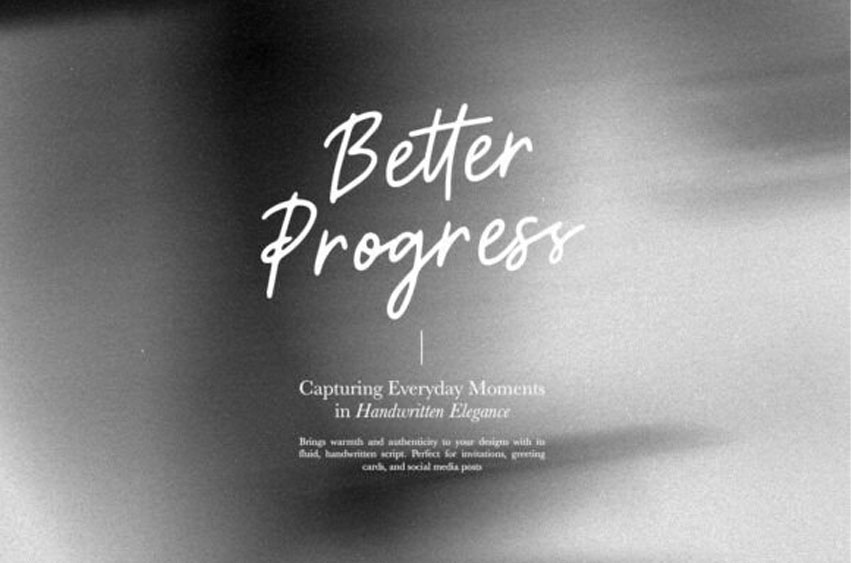
Better Progress Font is a minimalist handwritten script. You can use this font for any purposes, such as branding, quotes, logo, and your complimentary font to complement your other fonts.
With ligatures, you can achieve a more natural, handwritten look in your design. This font also supports multiple languages.